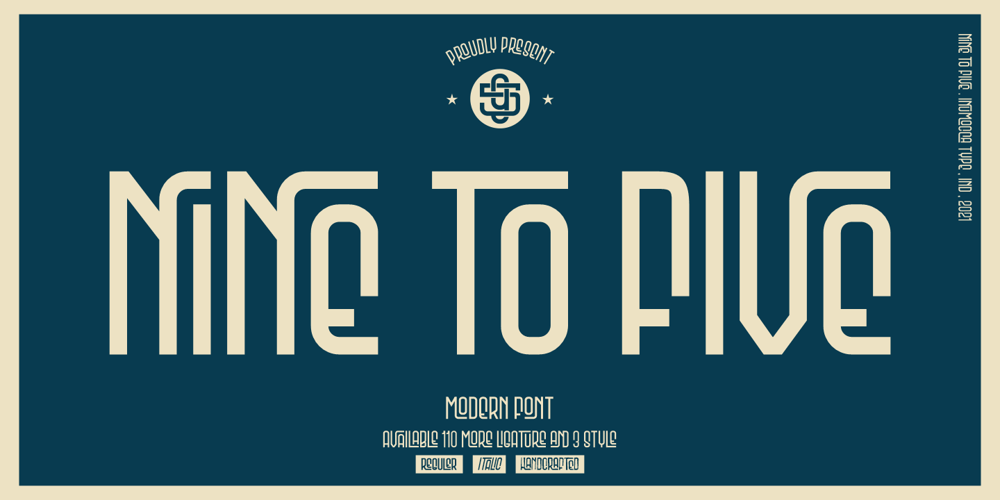
Nine To FIve Font Family was designed by Inu Mocca and published by Inumocca. Nine To FIve contains 3 styles and family package options. NINE TO FIVE is A Modern Font.The Font comes with Ligature Set (110 more Ligature Style)Good to use for covering your Project, like Branding, Your Logos, Headline Letter, Bookcover or Book Content, Magazine cover, Poster, Quotes Lettering, and more your project design.- Unique glyphs- Multilingual Characters Support- UPPERCASE- Lowercase- Numeric- Symbol- Punctuation Character- 110 more Ligature SET inumocca type